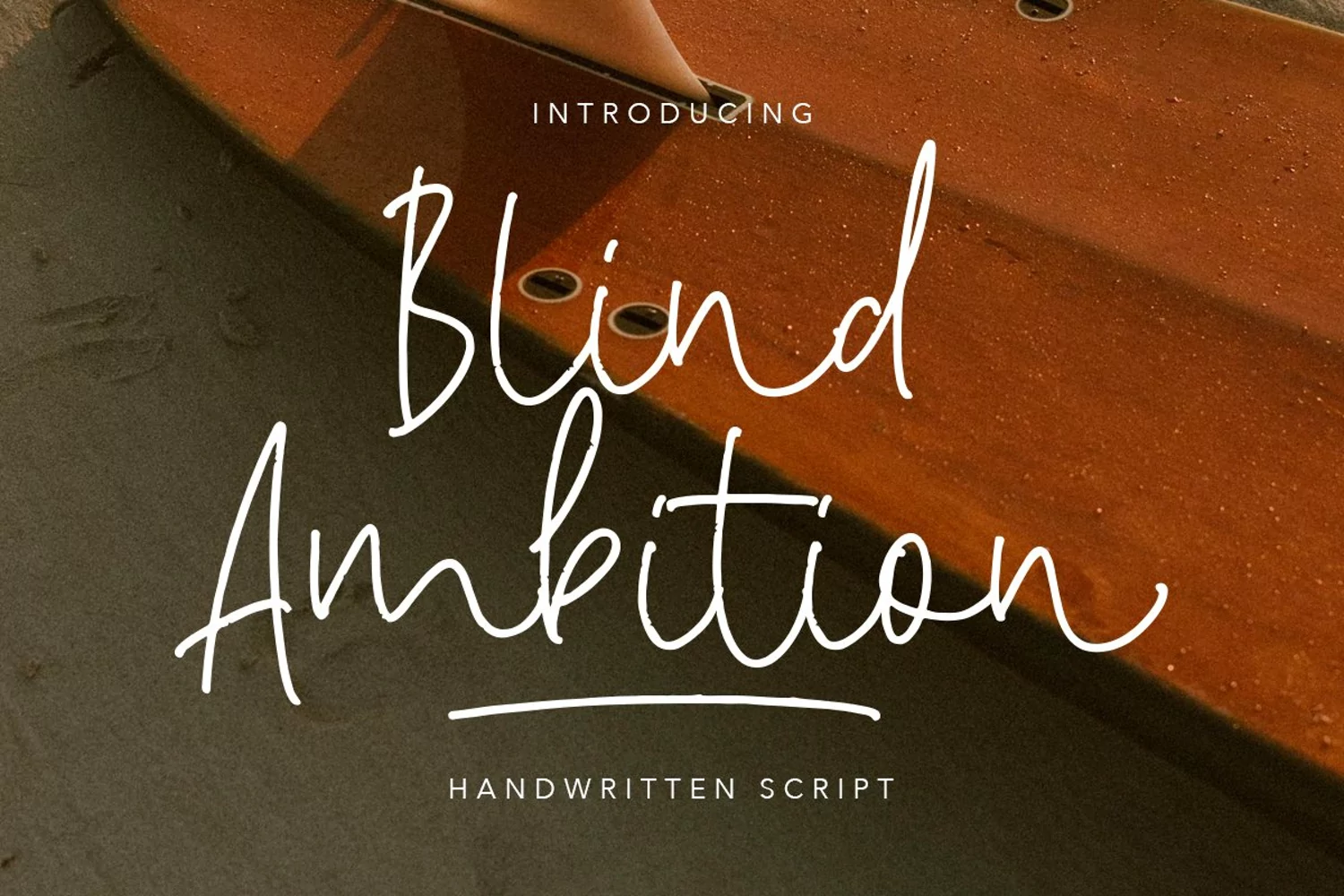
Blind Ambition Handwritten Script
Blind Ambition is a handwritten script with natural looks. With a monoline style that suits your signature also gives elegance to your designs. This type of font perfectly made to be applied especially in logo, and the other various formal forms such as invitations, labels, logos, magazines, books, greeting / wedding cards, packaging, fashion, make up, stationery, novels, labels or any type of advertising purpose.
• Uppercase & lowercase
• Numbers and punctuation
• Multilingual